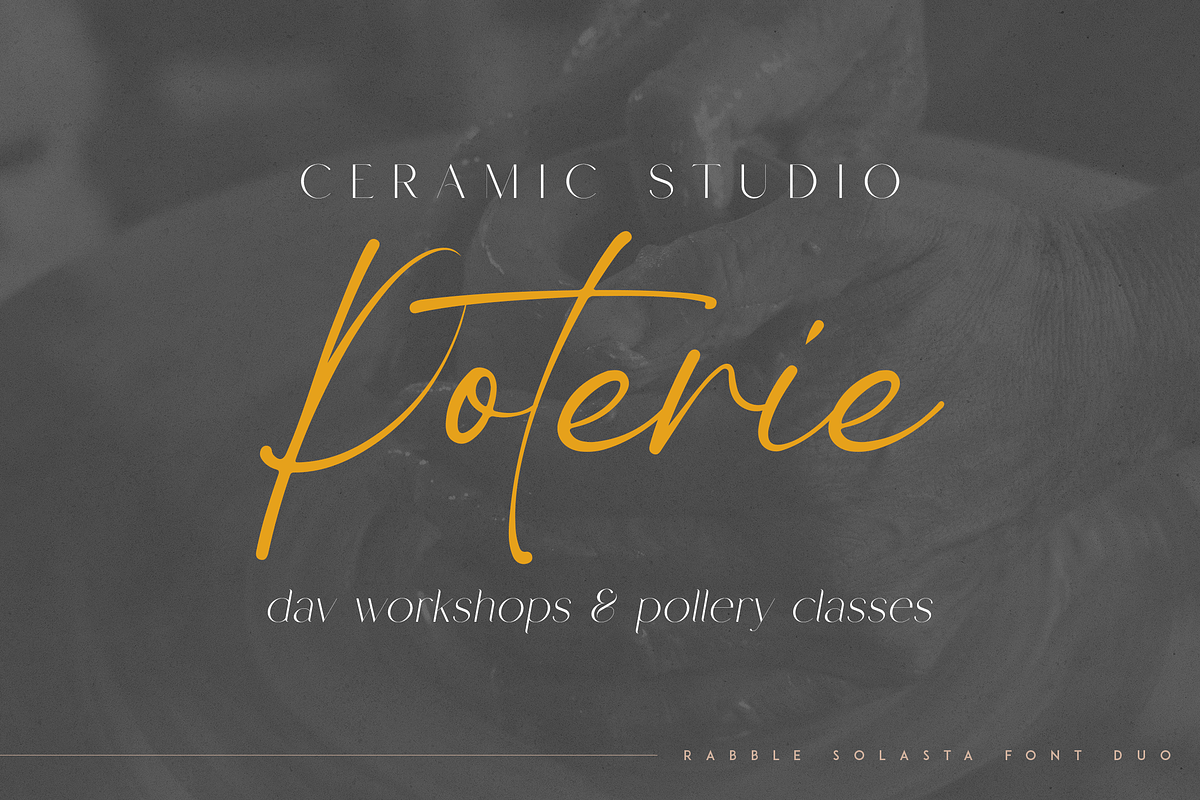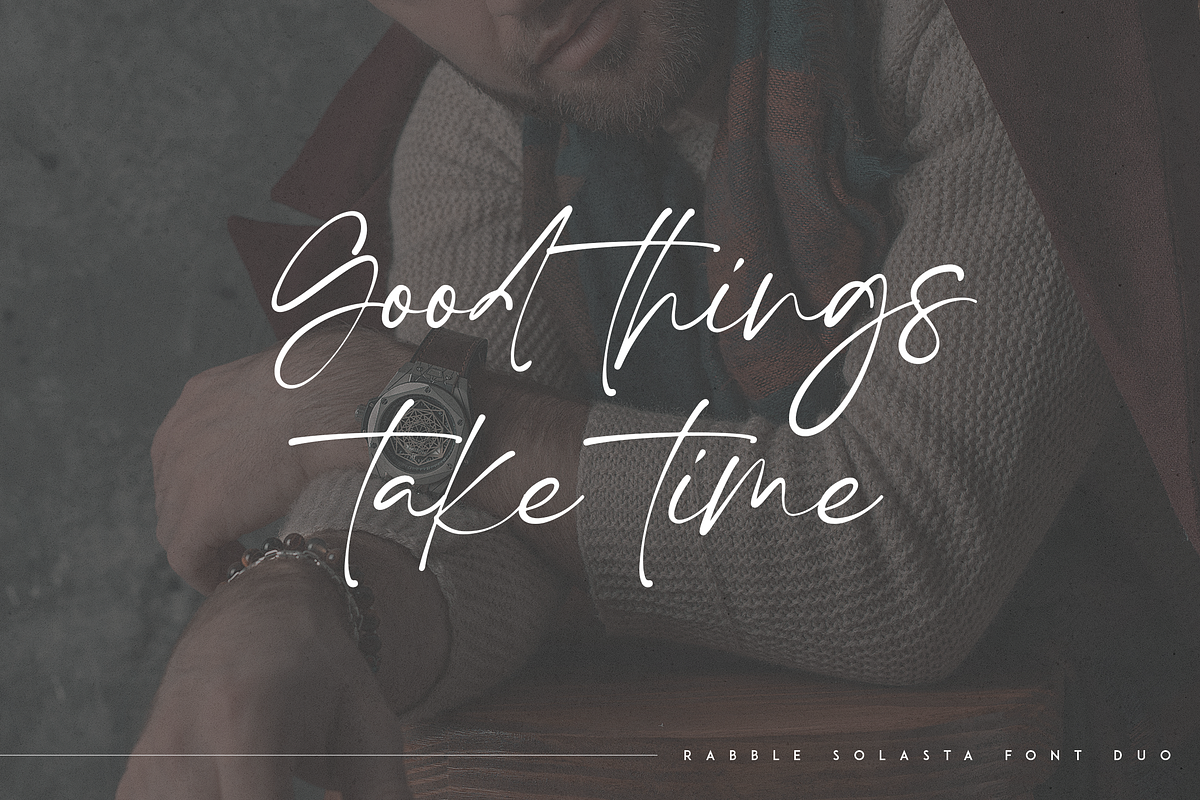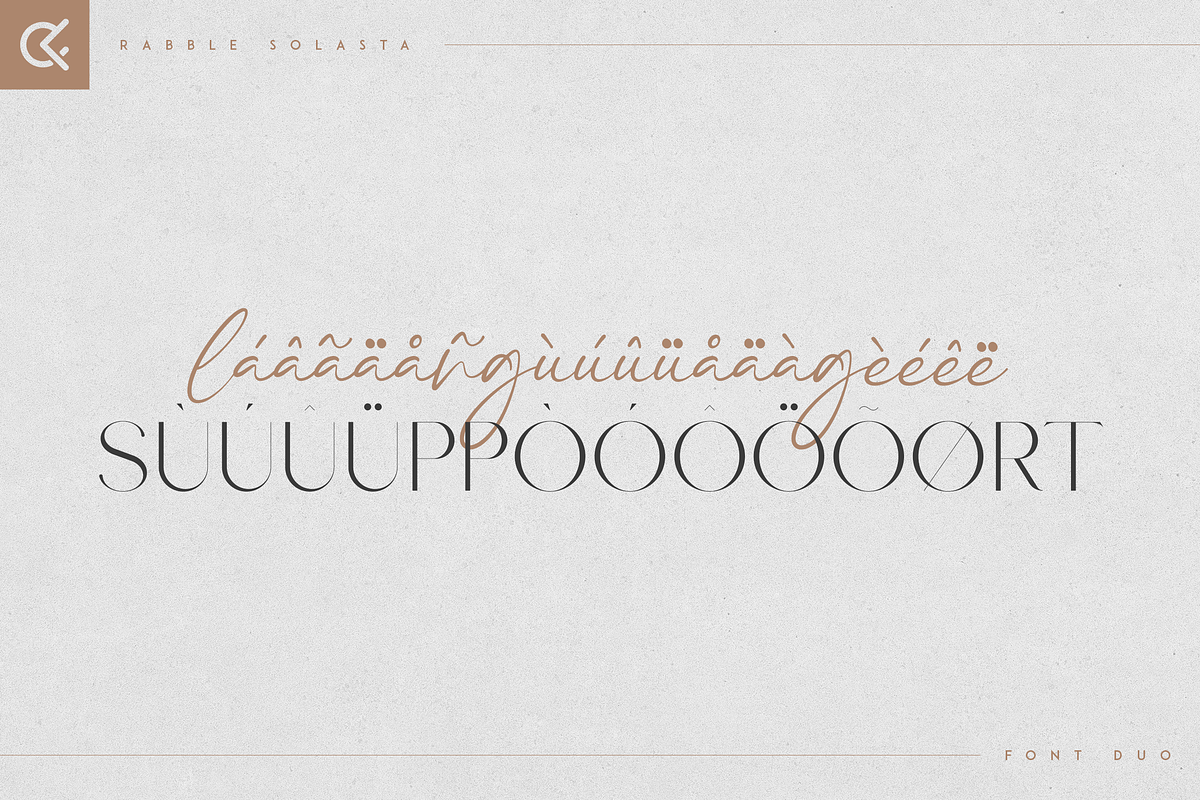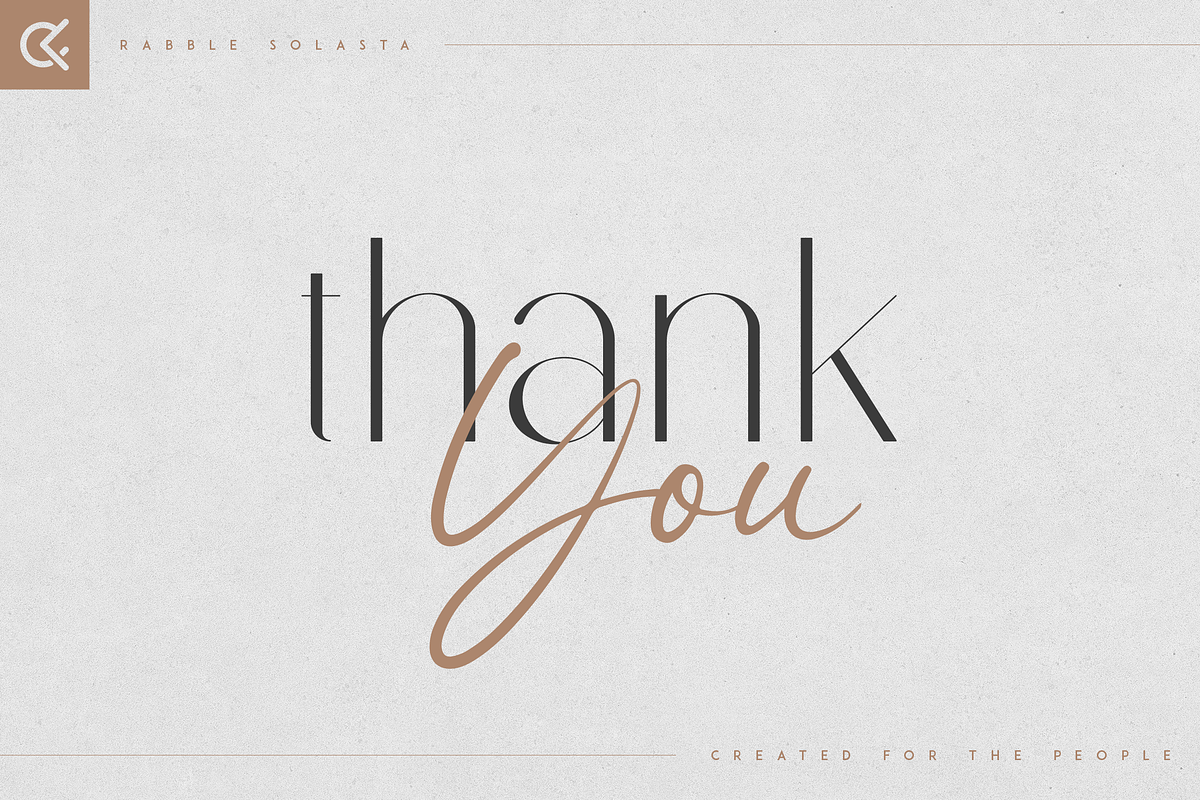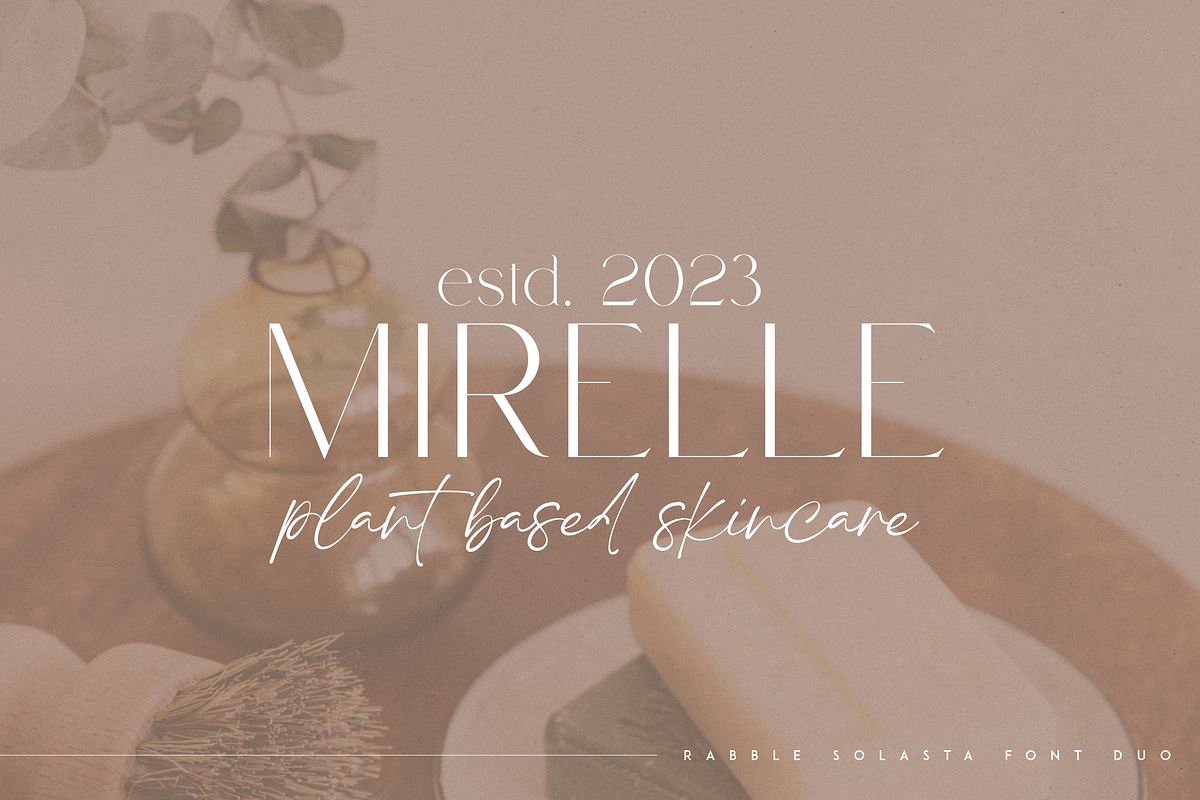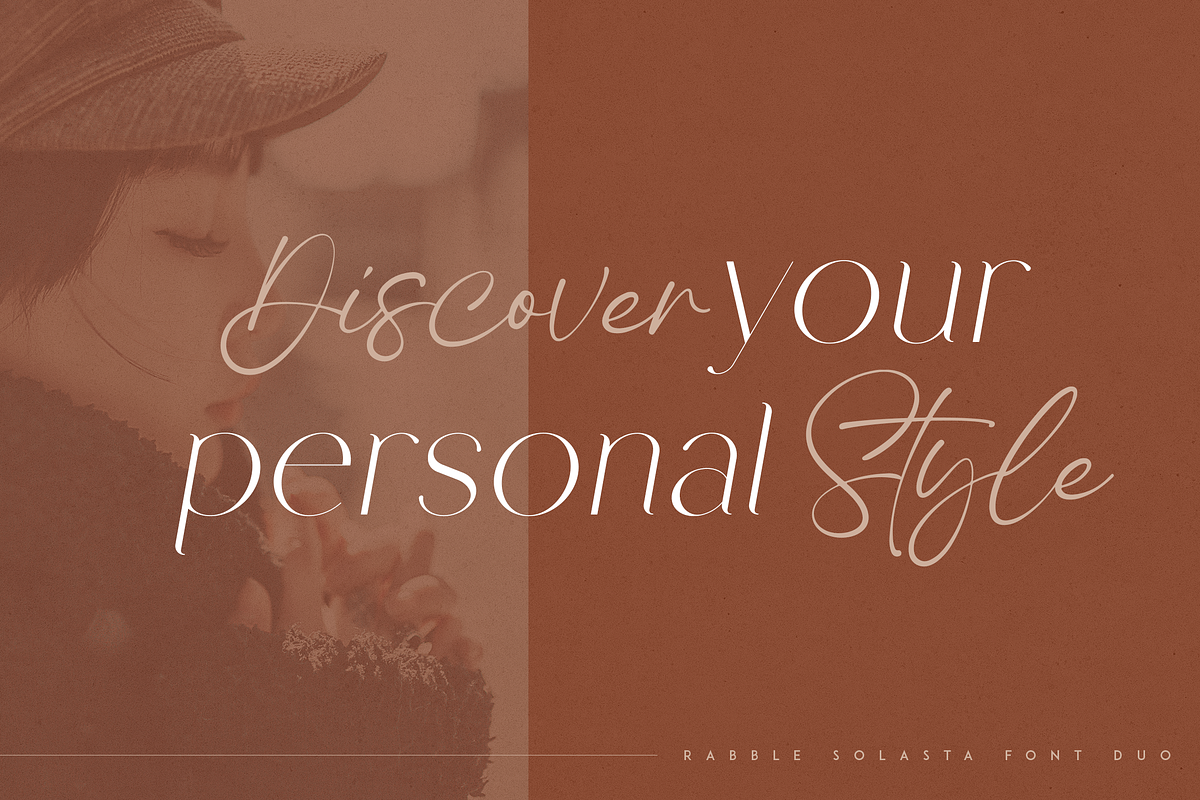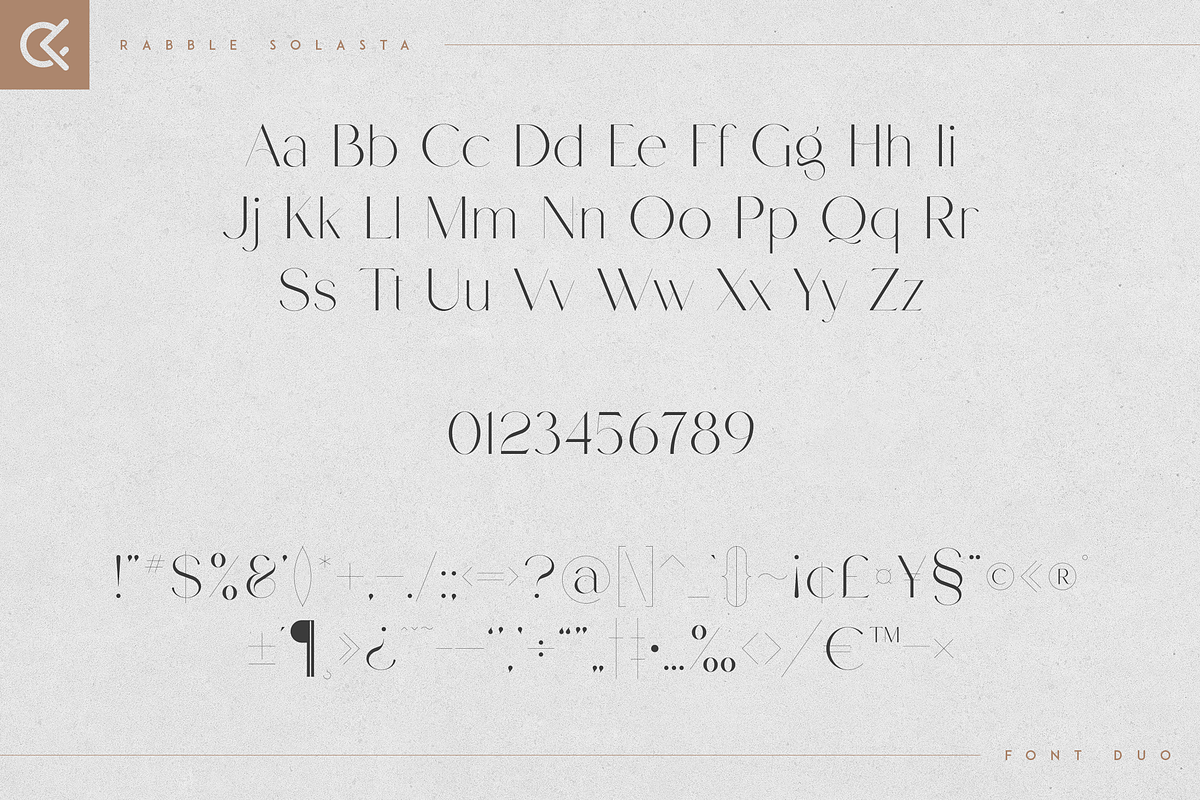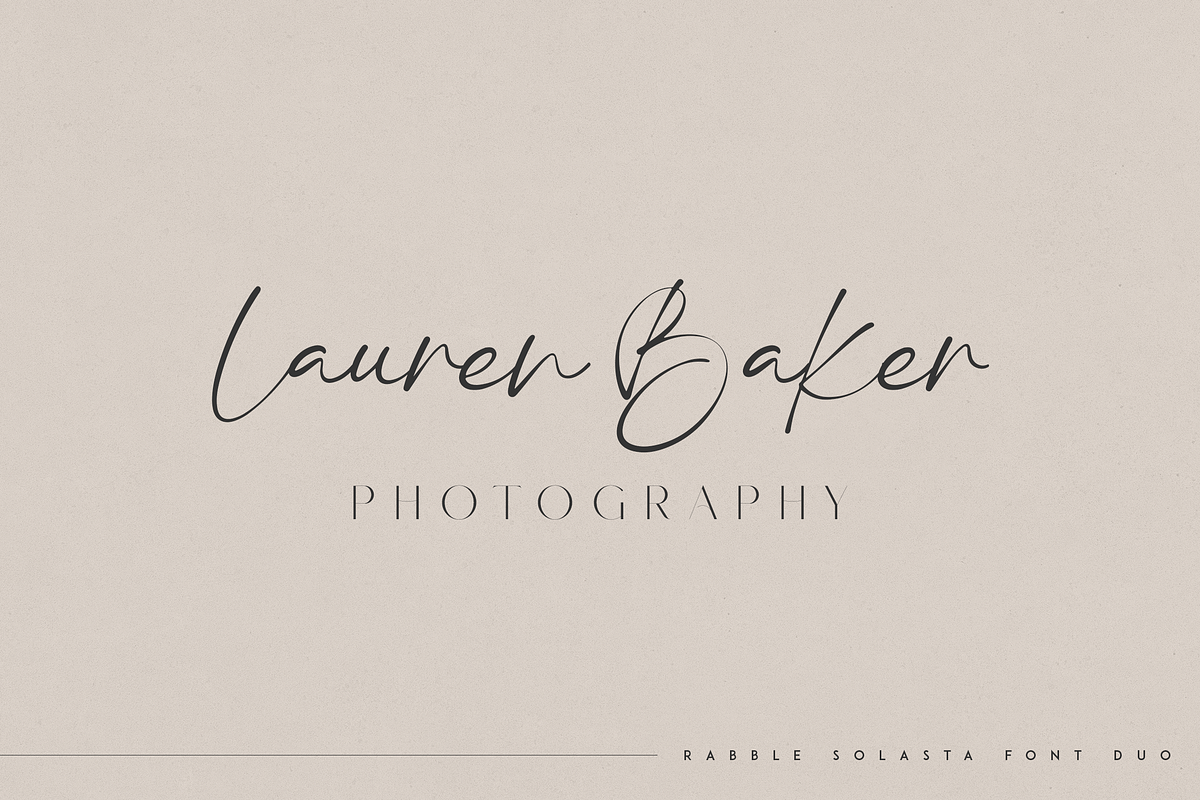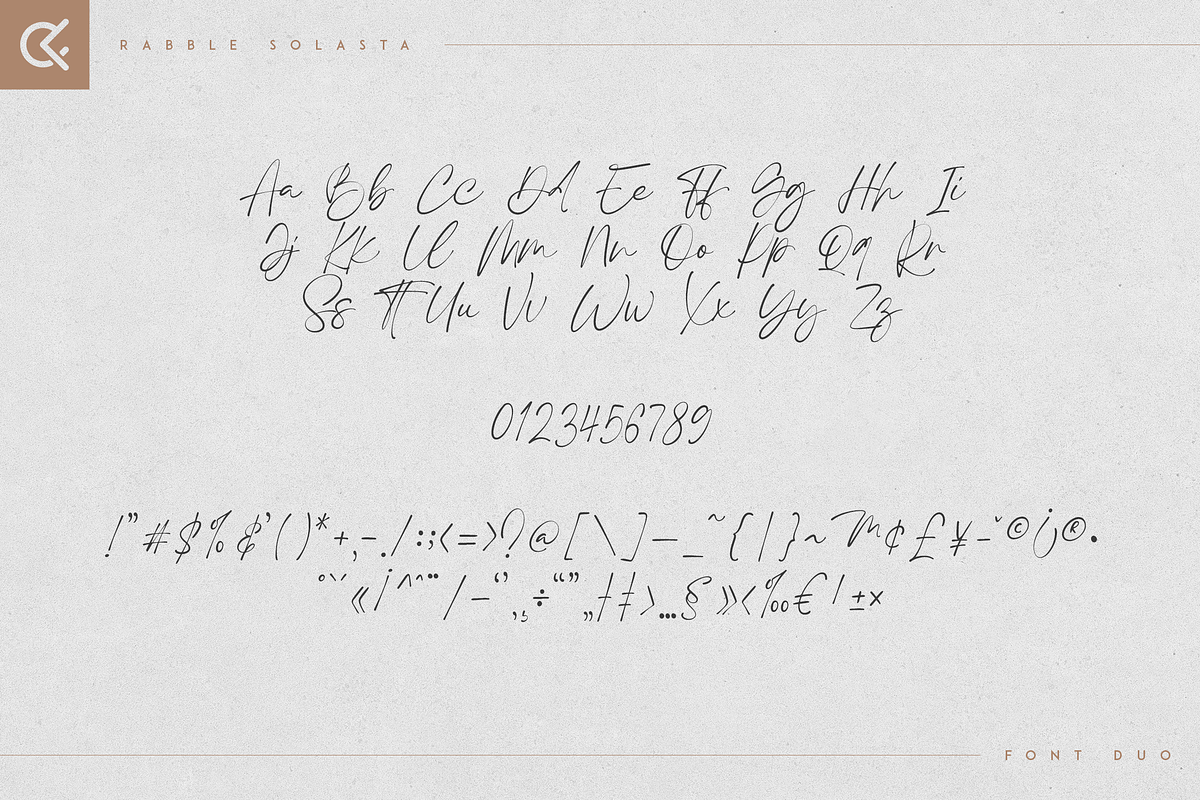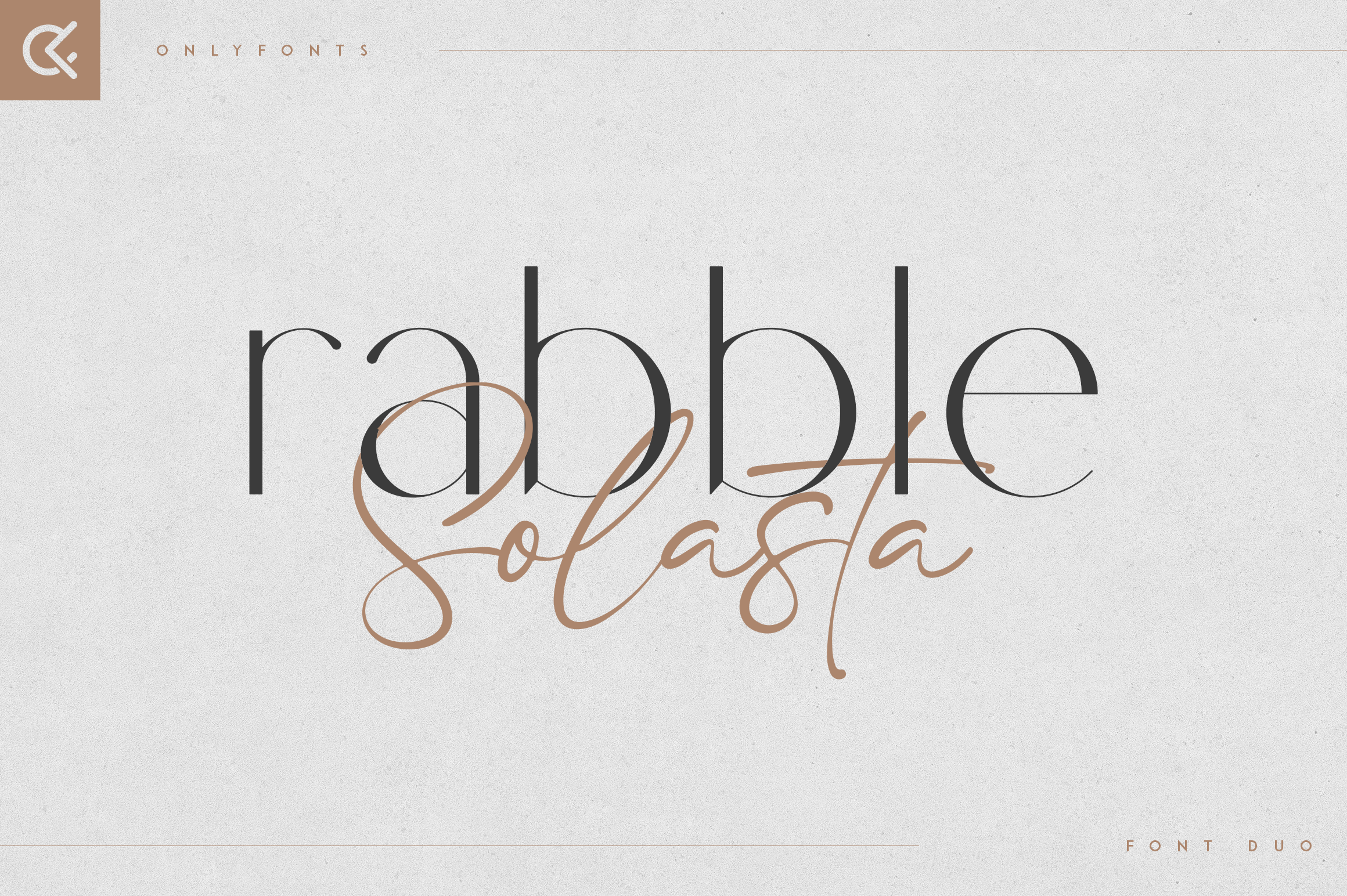
Rabble & Solasta - modern font duo
Introducing Rabble & Solasta - modern font duo
Rabble & Solasta is elegant and organic typeface with multilingual support. It's a very versatile font that works great in large and small sizes.
This font duo is perfect for branding projects, home-ware designs, product packaging, magazine headers - or simply as a stylish text overlay to any background image.